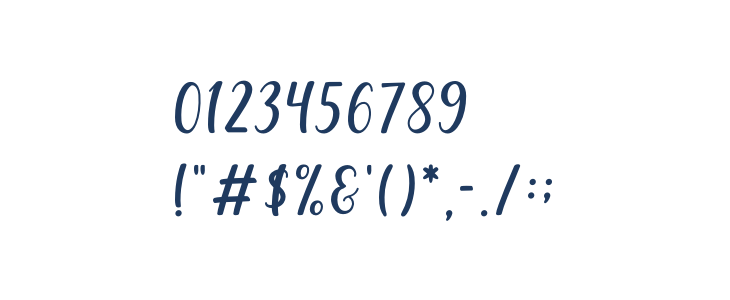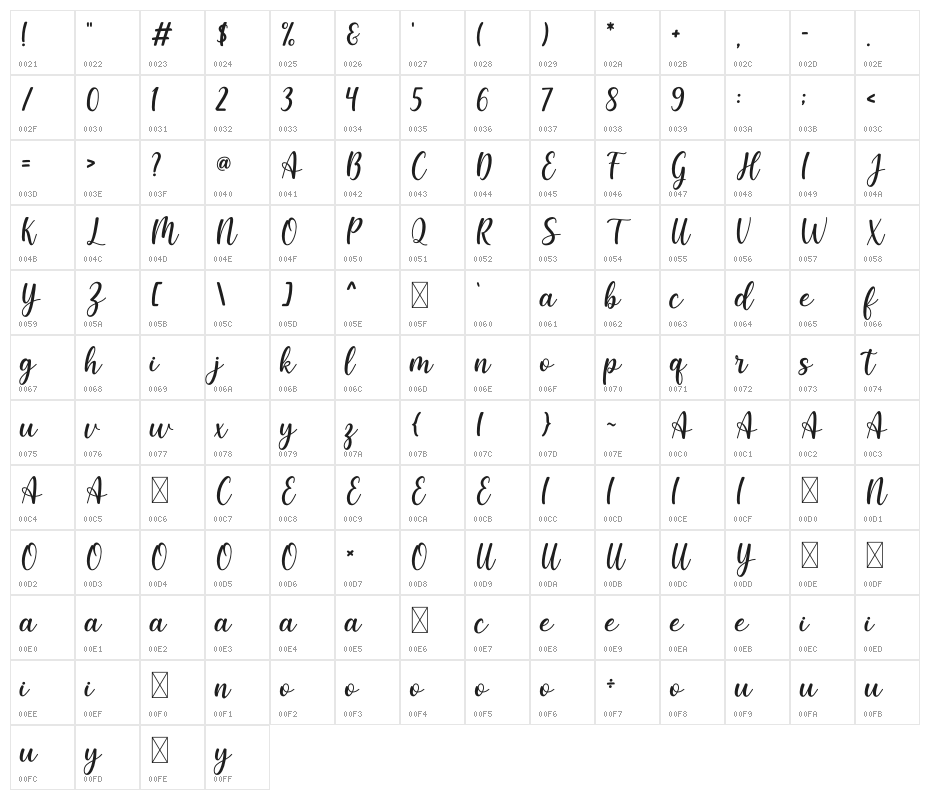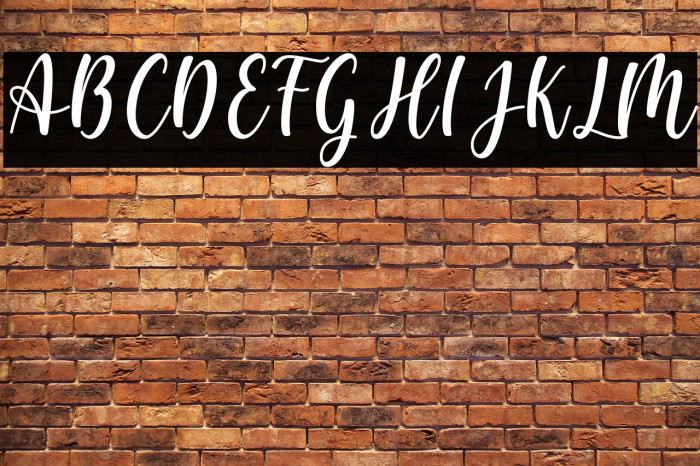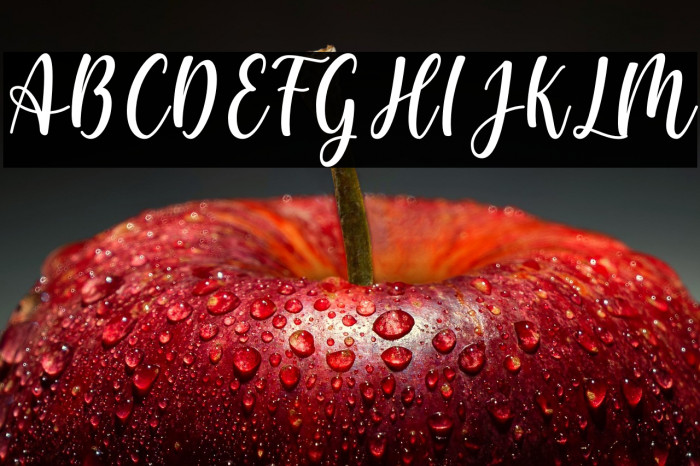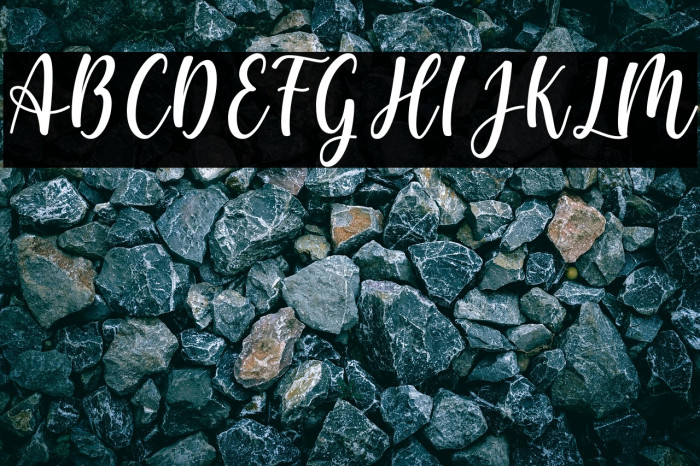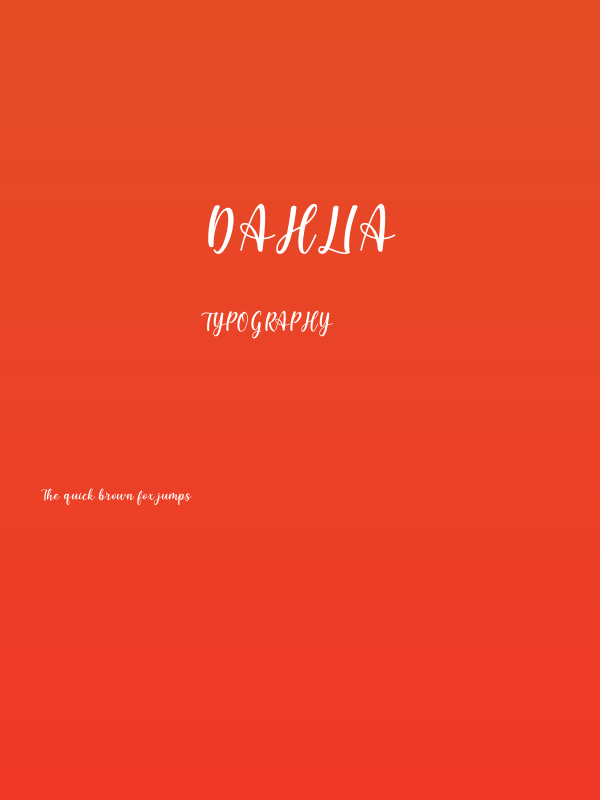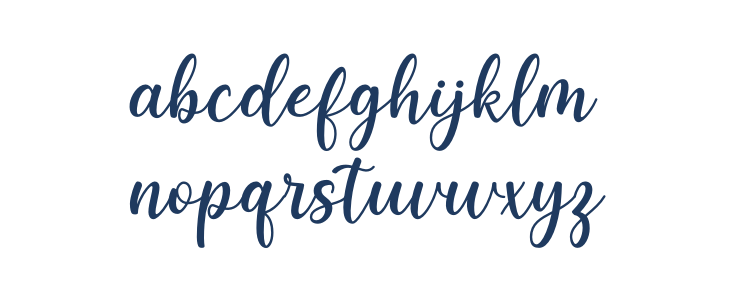
Dahlia Font
Dahlia Description
This font features a flowing, cursive style with elegant loops and swashes, giving it a handwritten appearance. The characters are connected, providing a seamless and fluid look. The uppercase letters are slightly more ornate, with some featuring additional flourishes. The lowercase letters maintain a consistent height, contributing to a balanced and harmonious design. The numerals are clear and legible, matching the overall aesthetic of the script. Special characters are included, maintaining the same decorative style. This font is ideal for projects that require a personal, artistic touch.